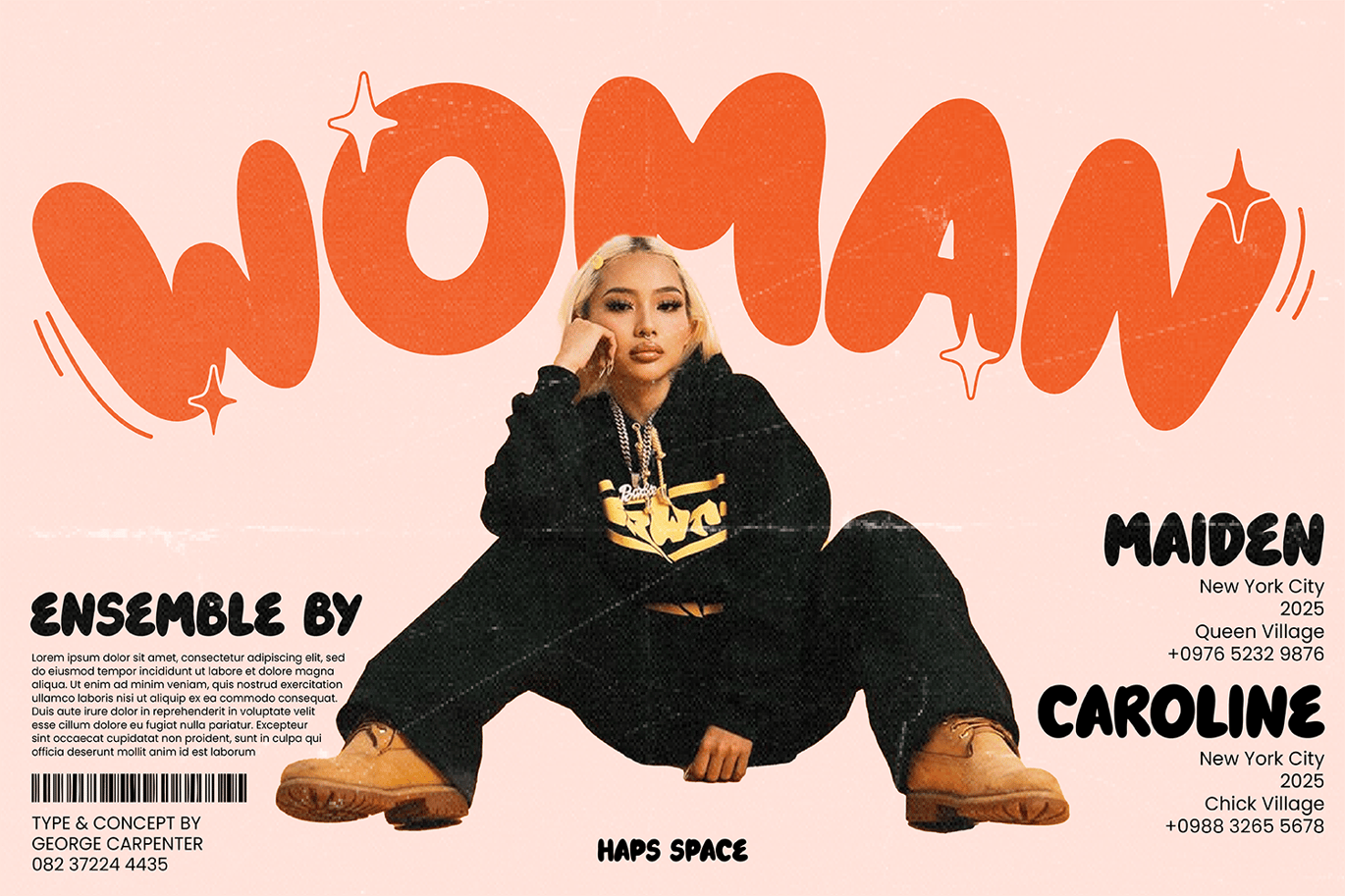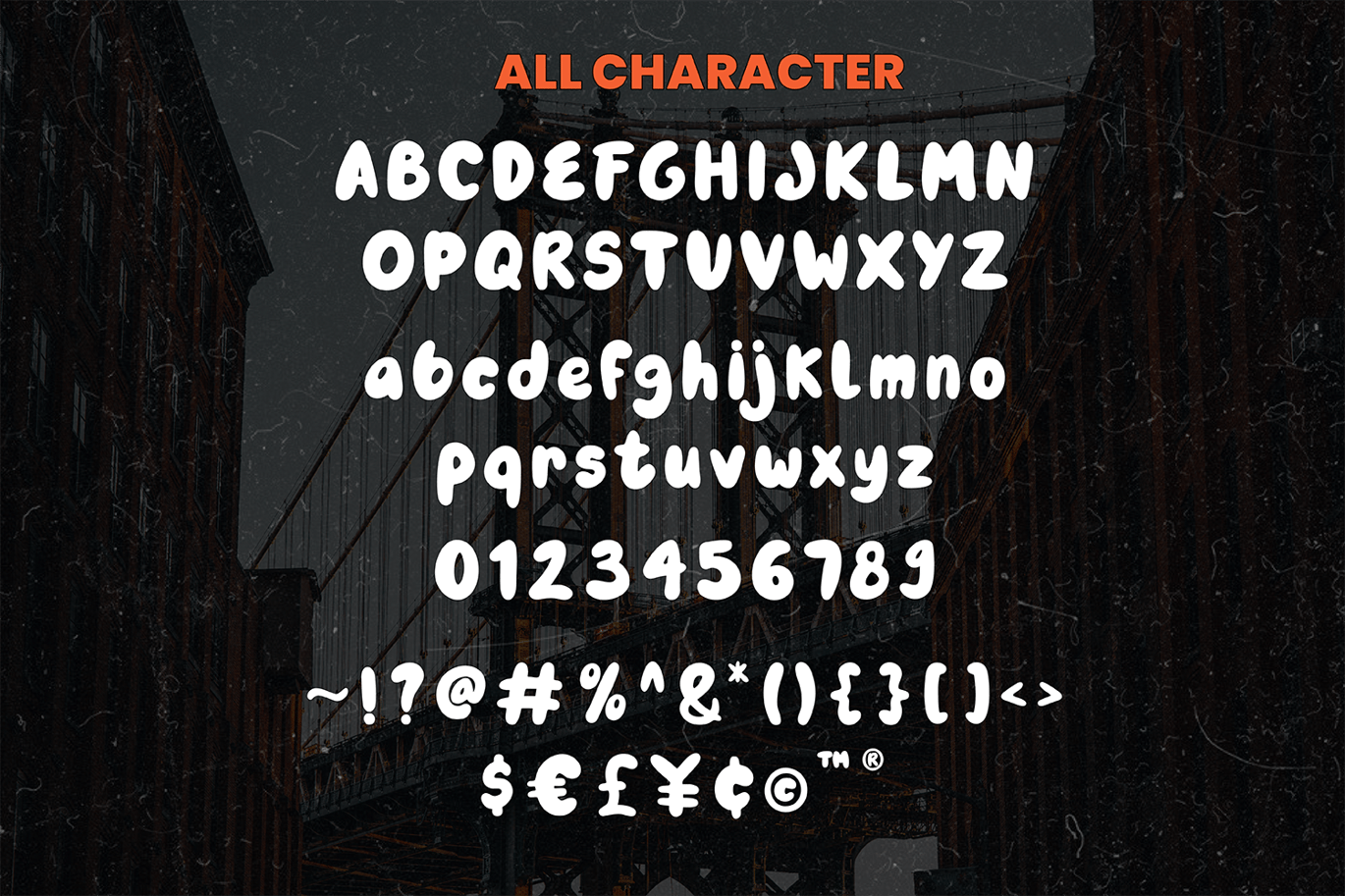
Dirty Weather Bubble Display Font
Dirty Weather Bubble Display Font is a versatile typeface ideal for various projects, including Sans-Serif, logos, branding, posters, blog headers, advertisements. The free version includes a full set of uppercase and lowercase letters, available in OTF format.